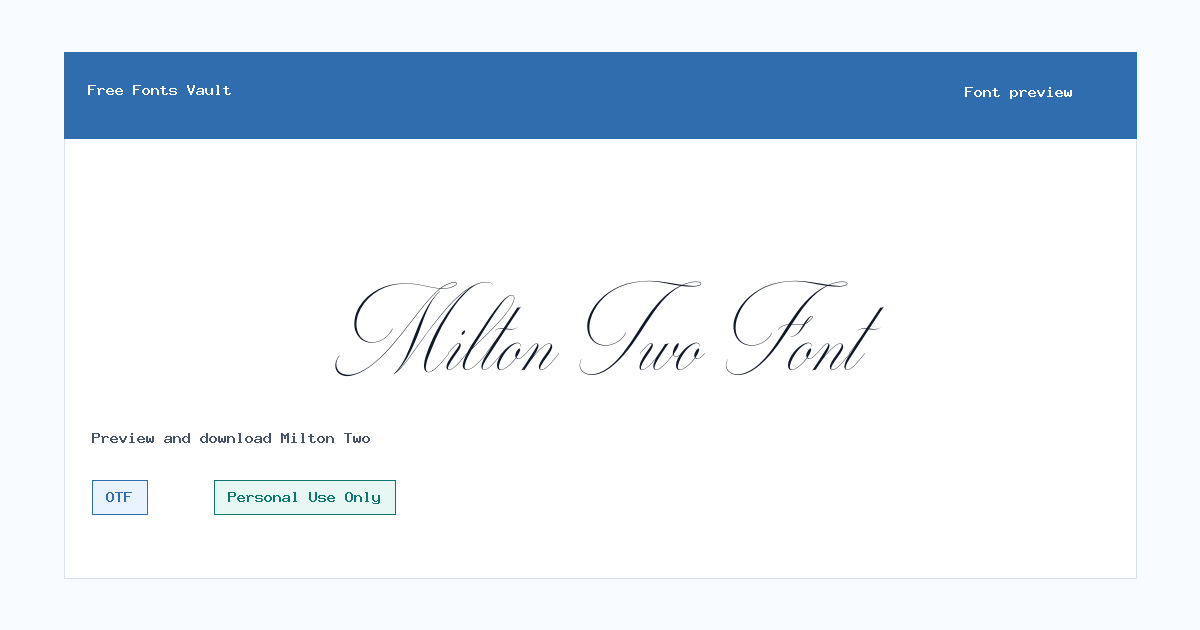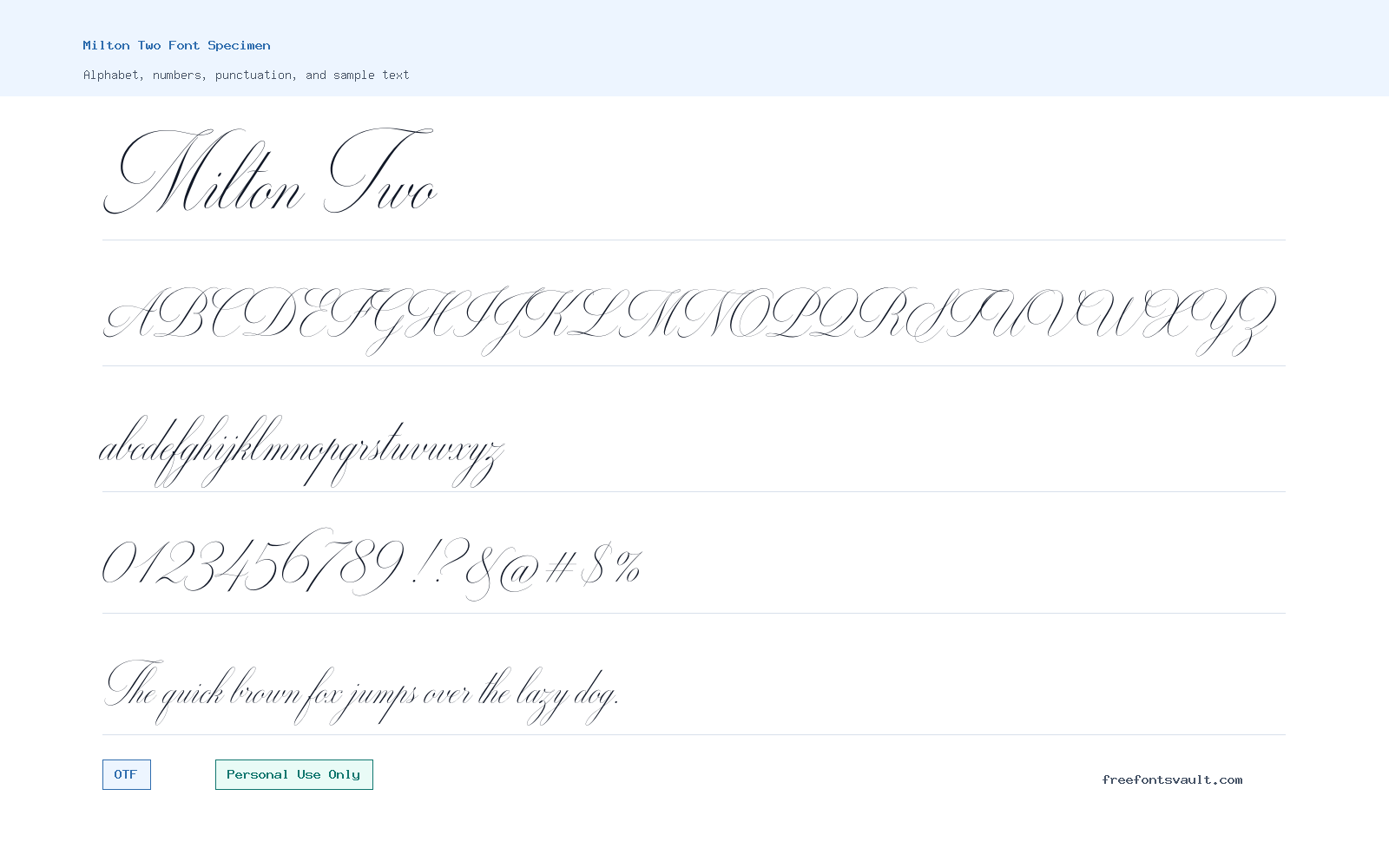
Milton Two
Milton Two is a graceful script font with long, flowing strokes and a refined handwritten feel. It works best when the text has room to breathe, such as names, short titles, invitations, quotes, and decorative headings. The font is offered in OTF format and is licensed for personal use only.
Milton Two has a thin calligraphic style with sweeping uppercase letters, narrow lowercase forms, and elegant entry and exit strokes. The letterforms feel light rather than heavy, so the font is better suited to decorative display text than dense reading. Its curves and flourishes can make a single word or short phrase feel polished, especially when used at a larger size. In smaller text, the fine lines and tight script rhythm may become harder to read, so it is worth testing your exact wording in the preview before downloading.
Use Milton Two when you want a soft script accent rather than a full text face. It can work for personal invitation mockups, wedding-style headings, greeting cards, quote graphics, name displays, digital scrapbooking, and elegant social graphics. Keep the surrounding design simple: pair it with a clean serif or sans serif for supporting text, and avoid placing long paragraphs in this font. Extra spacing, strong contrast, and a plain background will help the delicate strokes stay clear.
- Thin, flowing script letterforms with decorative capitals and numerals.
- Personal invitation designs, greeting cards, and name-based headings.
- Short quotes, elegant title graphics, and decorative social posts.
Preview your own words before downloading, especially names with many capitals or long phrases. The fine strokes look best at larger sizes, while small captions, body copy, and low-contrast backgrounds can reduce readability. For a balanced layout, use Milton Two as the accent font and set the practical information in a simpler companion typeface.
What kind of projects suit Milton Two?
Milton Two is best for short decorative text such as names, invitations, greeting cards, title graphics, and quote designs. It is not ideal for long paragraphs.
How should I pair Milton Two with other fonts?
Pair it with a simple serif or sans serif for body text. Let Milton Two handle the decorative headline or name, then use the companion font for details and longer reading.